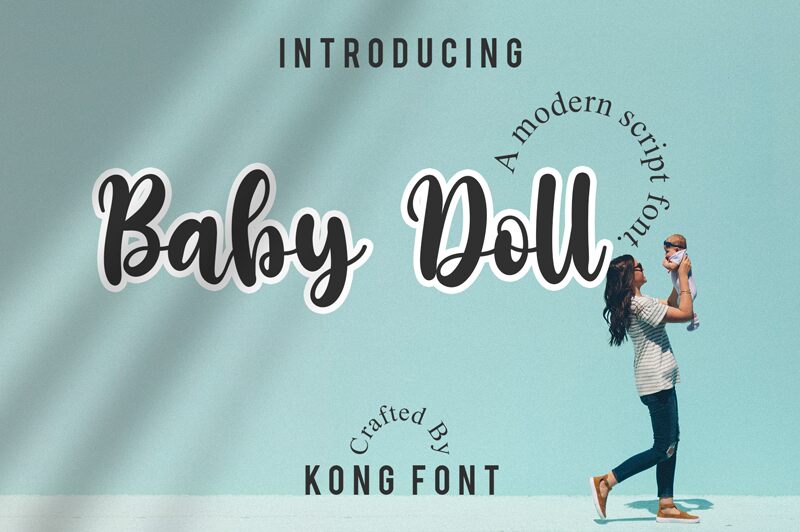
Baby Doll font family designed by Kong Font is a script font family which comes in 4 font styles. It’s a free font with visually striking characters that express both elegance and modernity. The artistic quality of its letters manifests in their smooth and flowing touches that add to the overall appeal of the font. It combines the best from several historical ideas while transpiring a contemporary look that meets today’s latest style demands.
This font will certainly come in handy in branding and advertising projects. Use it in more personal design such as T-Shirt prints, posters, packaging and labels, identity cards, business cards, and logos. Use it on websites, mobile apps, social media posts, headers, blogs, or even invitations. The friendly tone of the font allows it to expand its reach to more audience types.